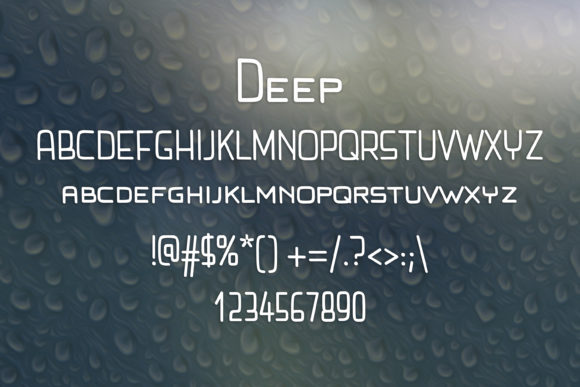
Unleash the Power of Deep Font: Elevate Your Designs with a Modern Twist
In the world of typography, fonts play a crucial role in transforming a design from ordinary to extraordinary. For designers and crafters seeking to make a statement, the Deep Font is an exceptional choice. With its incredibly charming and modern aesthetic, Deep Font makes an extraordinary display font that can turn any design idea into an eye-catcher. In this article, we’ll dive into the features, benefits, and creative applications of Deep Font, exploring how it can elevate your designs and take them to the next level.
What Makes Deep Font So Special?
Deep Font boasts a unique blend of modernity and sophistication, making it an ideal choice for designers looking to create stunning visual effects. Its sleek lines, elegant curves, and precise craftsmanship come together to create a font that exudes confidence and style. Whether you’re working on a branding project, a website design, or a craft project, Deep Font is sure to make a lasting impression.
Key Features of Deep Font
- Modern and Charming Aesthetic: Deep Font’s contemporary design ensures that your creations look fresh and up-to-date, perfect for designers who want to stay on-trend.
- Extraordinary Display Font: With its bold and eye-catching appearance, Deep Font is ideal for headlines, titles, and other display text, making it a great choice for designers who want to grab attention.
- Versatility: Deep Font can be used across various design projects, from digital designs to print materials, and even craft projects, offering endless creative possibilities.
Creative Applications of Deep Font
Deep Font’s versatility makes it suitable for a wide range of design projects. Here are some creative ways to use Deep Font:
- Branding and Logos: Create a lasting impression with Deep Font, perfect for crafting memorable brand identities and logos.
- Website Design: Elevate your website’s visual appeal with Deep Font, ideal for headlines, titles, and other display text.
- Print Materials: Use Deep Font to create stunning print materials, such as brochures, flyers, and posters.
- Craft Projects: Add a touch of modern elegance to your craft projects, such as handmade cards, scrapbooking, and DIY decorations.
Tips for Using Deep Font Effectively
To get the most out of Deep Font, consider the following tips:
- Pair with Complementary Fonts: Combine Deep Font with complementary fonts to create visual interest and hierarchy.
- Experiment with Colors: Play with different colors to find the perfect match for your design and brand identity.
- Pay Attention to Spacing: Ensure adequate spacing to maintain readability and visual flow.
| Font Name | Deep Font |
| Author | dmytroyarish |
Deep Font is an exceptional choice for designers and crafters seeking to create stunning visual effects. With its modern and charming aesthetic, extraordinary display capabilities, and versatility, Deep Font is sure to elevate your designs and take them to the next level. Whether you’re working on a branding project, website design, or craft project, Deep Font is an excellent addition to your typography toolkit. So, unleash the power of Deep Font and turn your design ideas into eye-catchers!